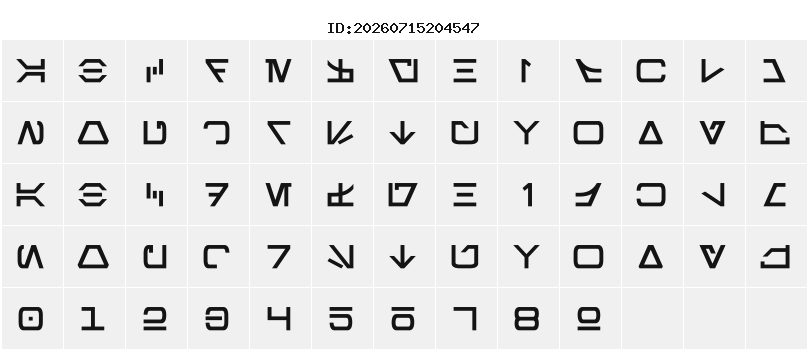
About Aurebesh.ttf
Aurebesh.ttf is a modern, elegant sans-serif font designed for ultimate readability and visual harmony. Perfect for branding, headlines, web design, and print materials.